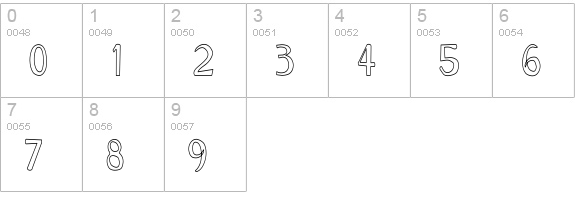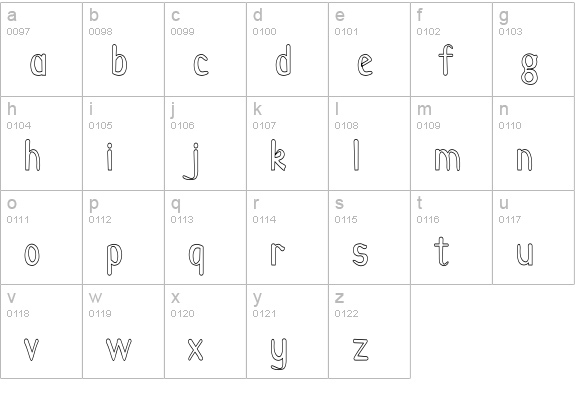
CarawayHC Font Details
CarawayHC is a modern and elegant font that combines sophistication with a touch of playfulness. Its unique design features clean lines and rounded edges, making it perfect for a wide range of projects, from branding to invitations. The versatility of CarawayHC allows it to be used in both digital and print applications, ensuring that your message is conveyed with style and clarity. What sets CarawayHC apart is not just its aesthetic appeal, but also the fact that it is available for free download at FontsMarket.com. This means that you can easily access and use this beautiful font without any cost, making it a valuable addition to your font collection. Whether you're a designer looking for a fresh new typeface or a hobbyist creating personal projects, CarawayHC is sure to impress with its timeless charm and effortless grace.